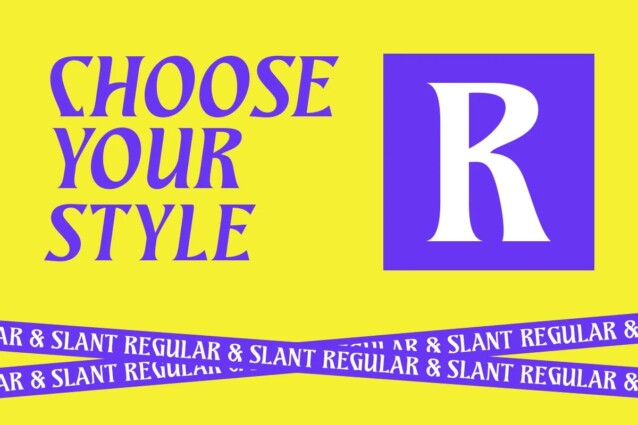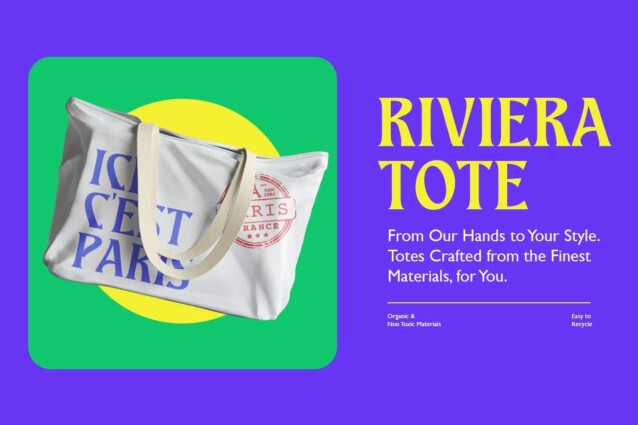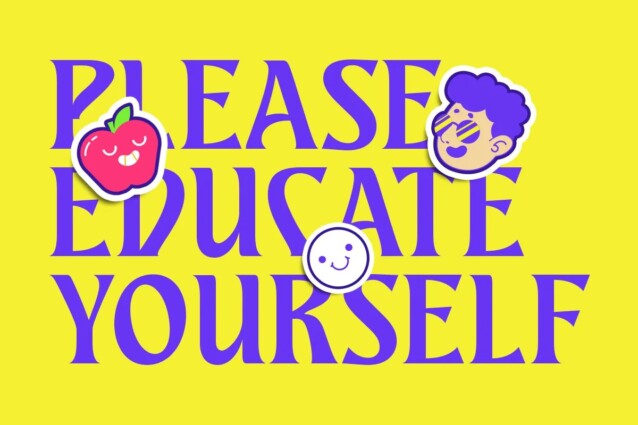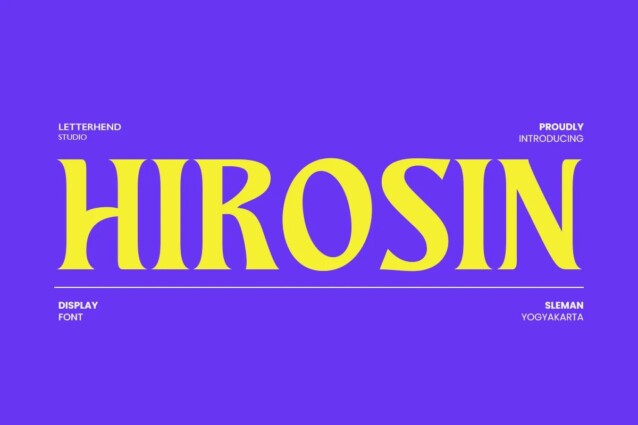
Hirosin Font is a serif font designed by Letterhend Studio with a classic style and a elegant look. This typeface has been made carefully to make sure its premium quality. This typeface has can be used for modern theme or vintage looks. Very suitable for logo, headline, tittle, and the other various formal forms such as invitations, labels, logos, magazines, books, greeting / wedding cards, packaging, fashion, make up, stationery, novels, labels or any type of advertising purpose.